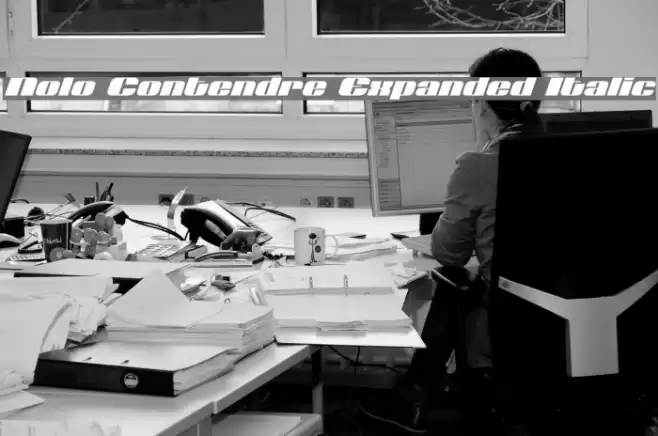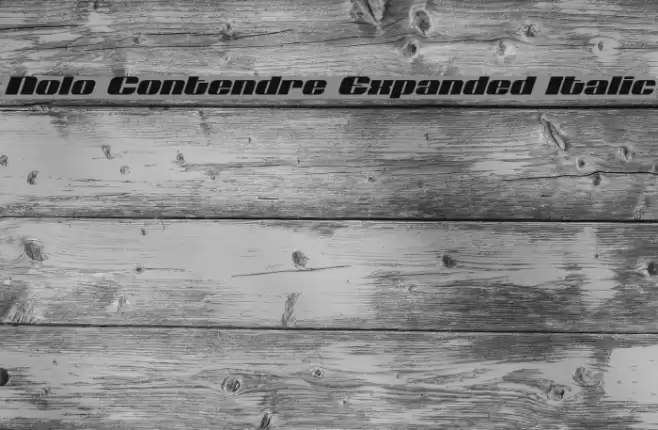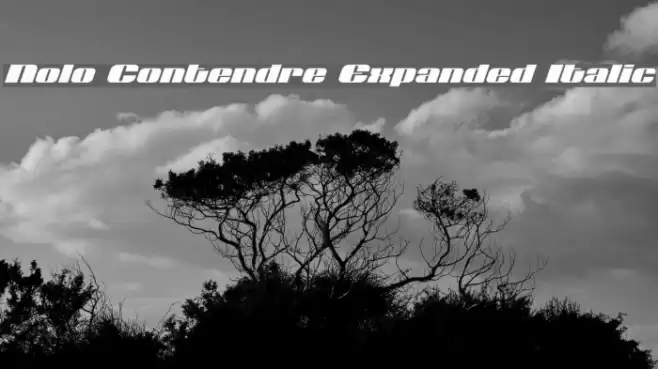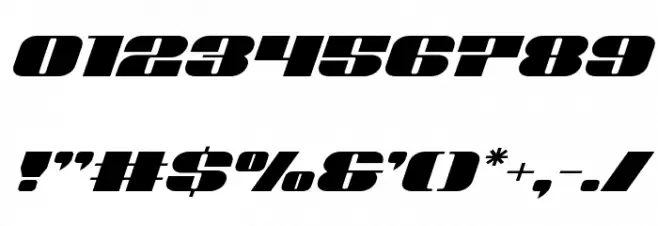
Nolo Contendre Expanded Italic Font
Nolo Contendre Expanded Italic Description
This font features a bold and dynamic style with an italic slant, giving it a sense of movement and energy. The characters are expanded, providing a wide and impactful appearance. The strokes are thick and consistent, contributing to a strong visual presence. The uppercase and lowercase letters maintain a cohesive design, while the numerals and special characters align seamlessly with the overall aesthetic. This font's boldness and expanded width make it ideal for attention-grabbing headlines and display purposes.
A bold, expanded italic font with a dynamic and impactful style from Uncategorized fonts.
- Proposed Projects: Ideal for sports branding, dynamic posters, and bold advertising campaigns.